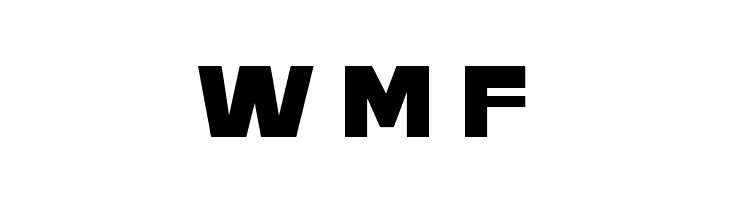
Seven Eleven Font
SiapGraph
A bold, geometric font with a strong, modern presence.
KR Katlings Eleven Font
Font by Kat`s Fun Fonts - Personal-use only. For commercial use please contact owner.
Playful, illustrated dingbat font with quirky, themed icons.
Mahallini Font
Font by Typegoals Labs - Personal-use only. For commercial use please contact owner.
A fluid, elegant handwritten font with a consistent stroke width.